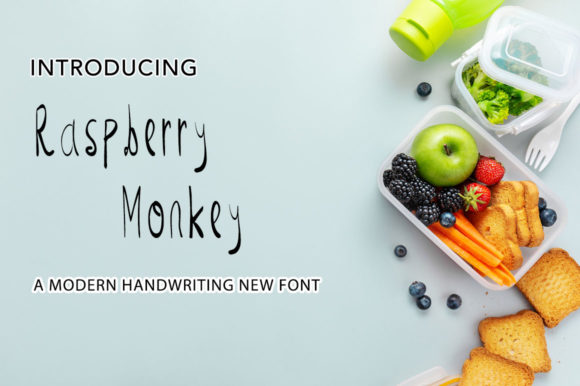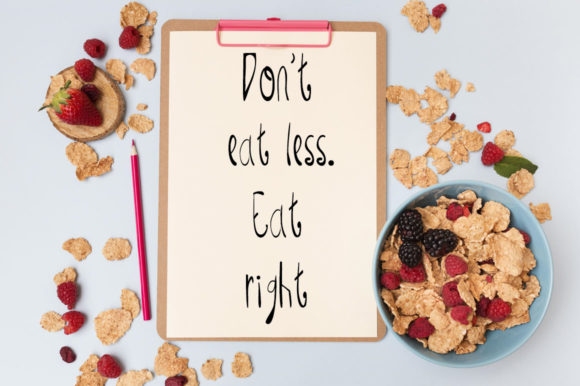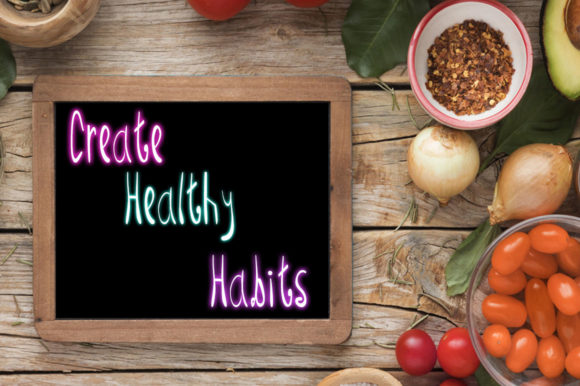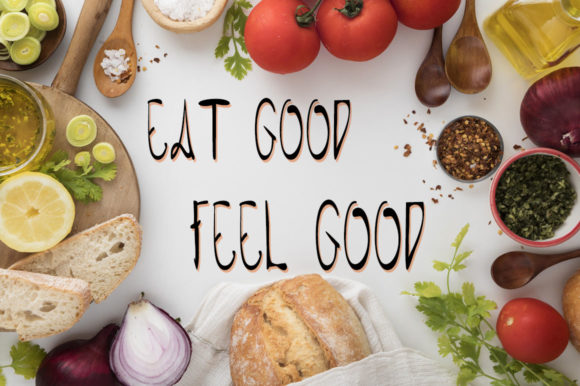
Raspberry Monkey Font
About Raspberry Monkey Font
Raspberry Monkey is a cute and casual handwritten font. Fall in love with its incredibly versatile style and use it to create gorgeous wedding invitations, beautiful stationary art, eye-catching social media posts, and much more!